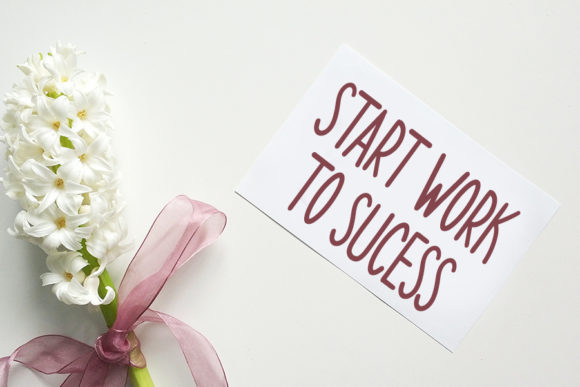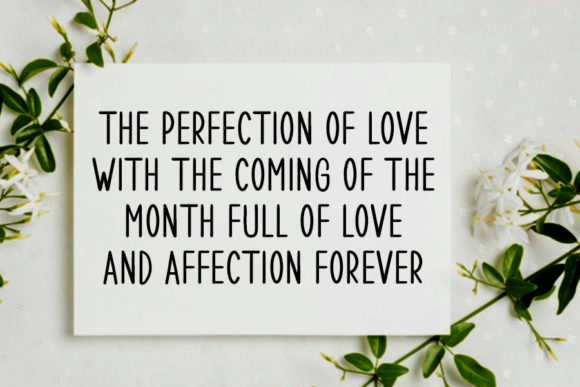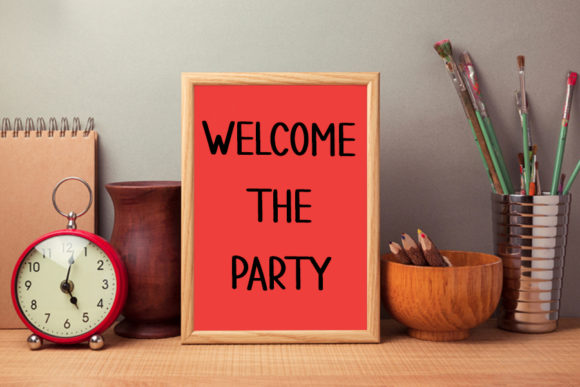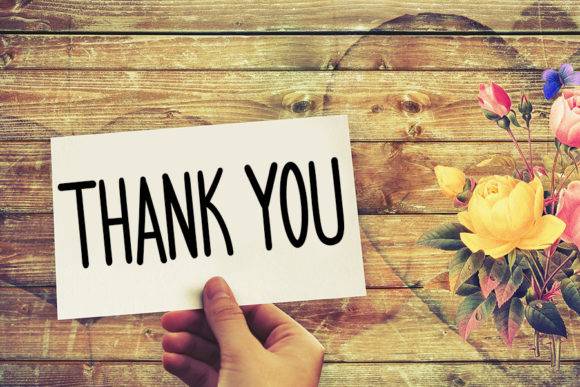
Welcome Paradise Font
About Welcome Paradise Font
Welcome Paradise is a simple handwritten font. Its distinct and well rounded letters make this font a masterpiece. Fall in love with its incredibly versatile style and use it to create spectacular designs!